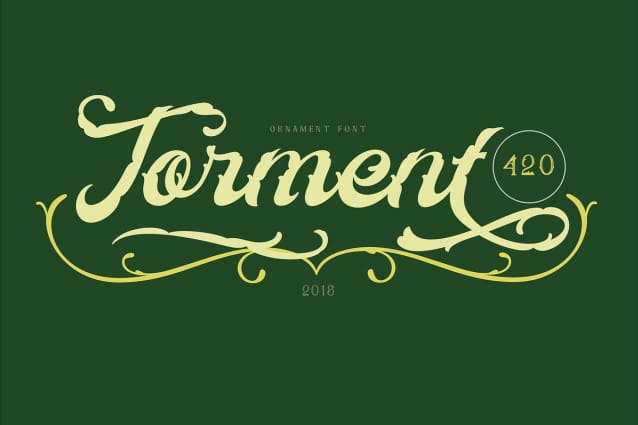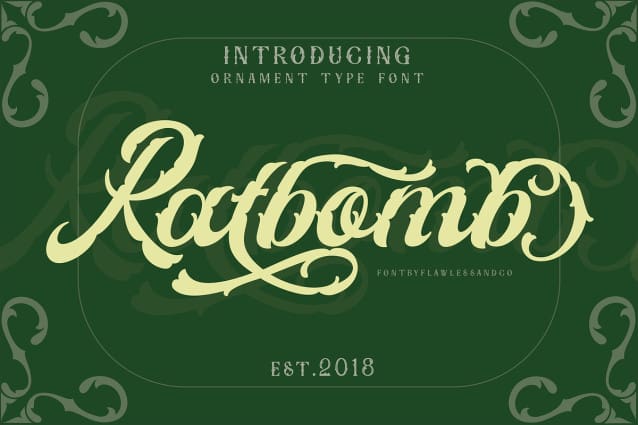
Ratbomb Script Font
Ratbomb Script Font – A Unique Ornament Font. Ratbomb is a captivating ornament font that effortlessly adds a touch of elegance and whimsy to your designs. Its intricate and finely crafted elements make it stand out in any creative project, allowing you to add a dash of magic and sophistication. This font is suitable for tattoos, branding, business, logos, magazines, and others.